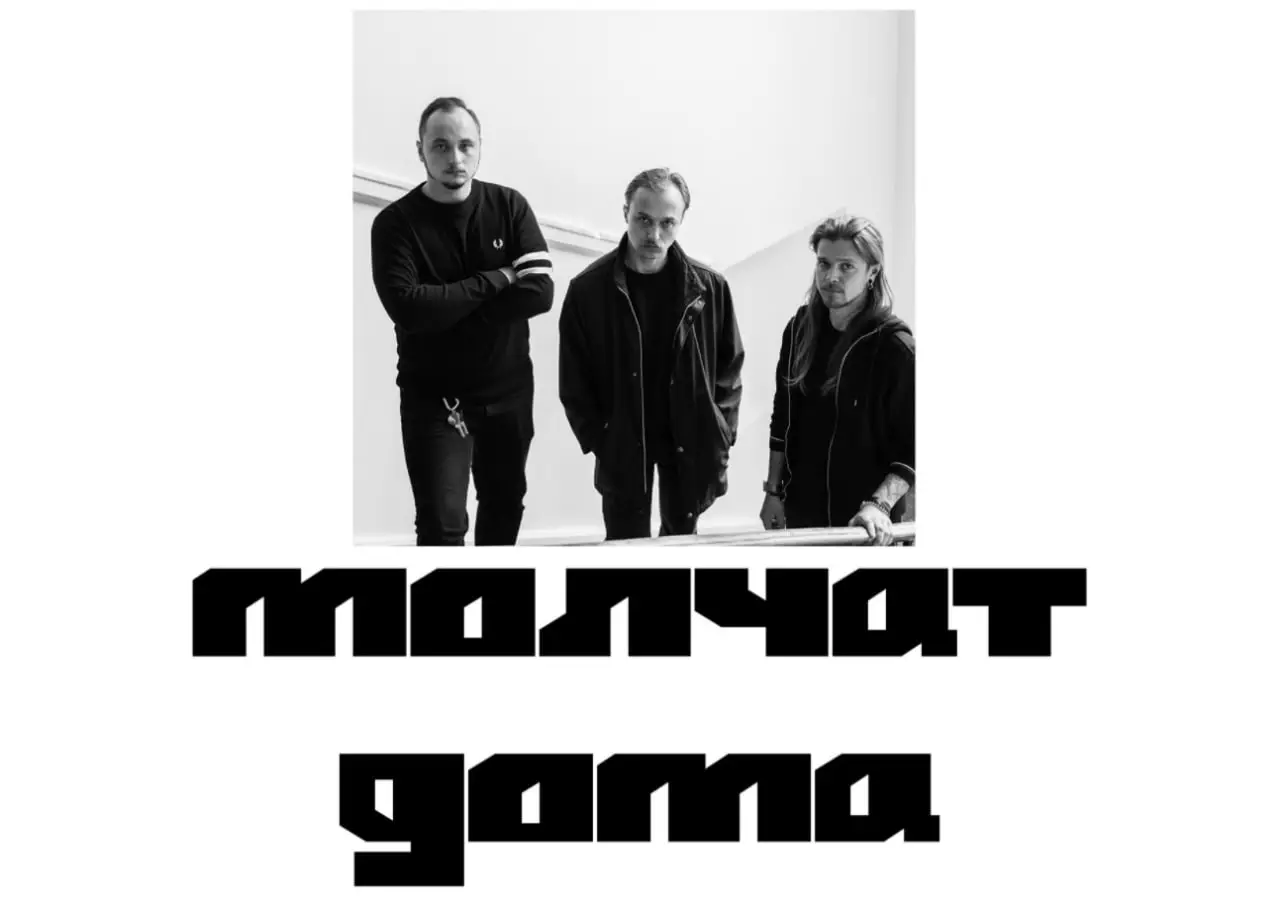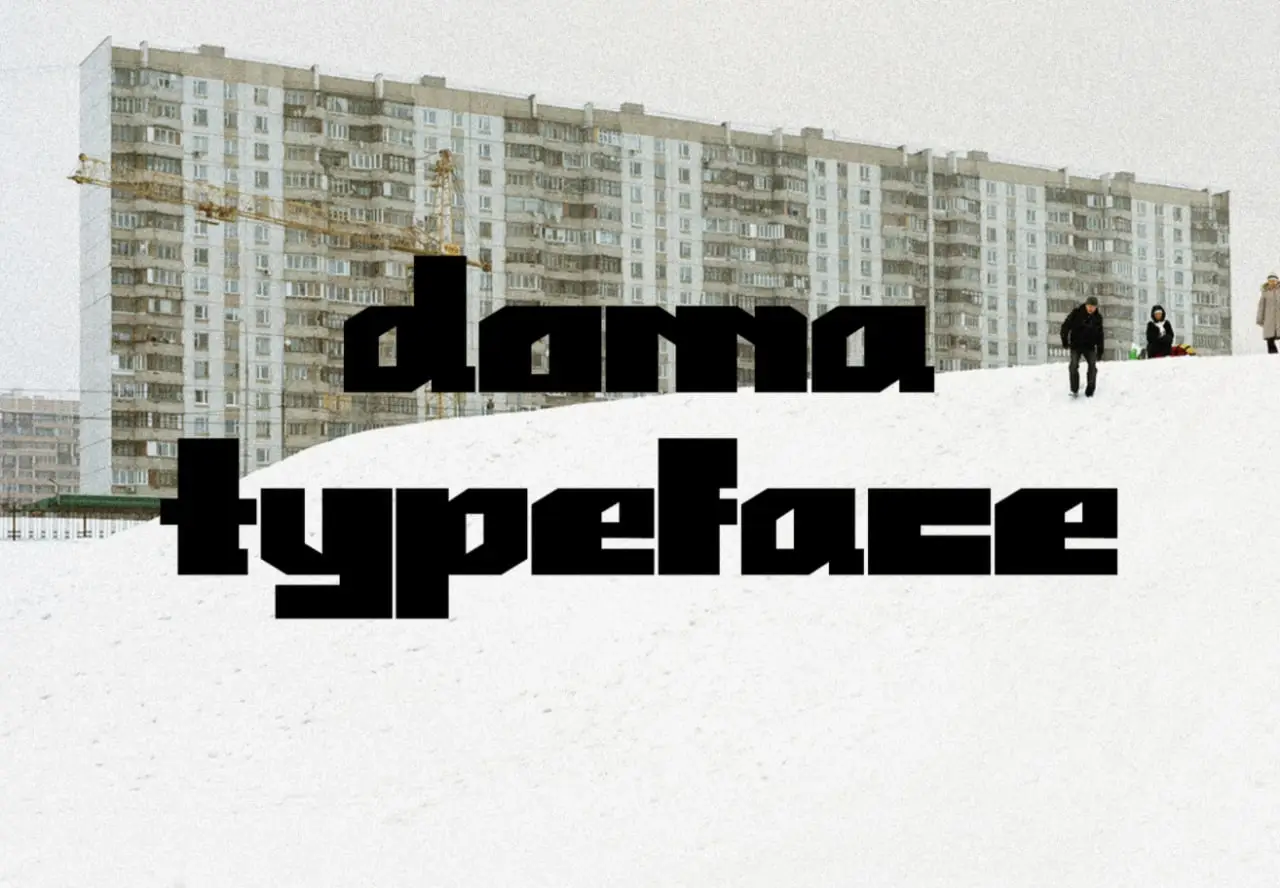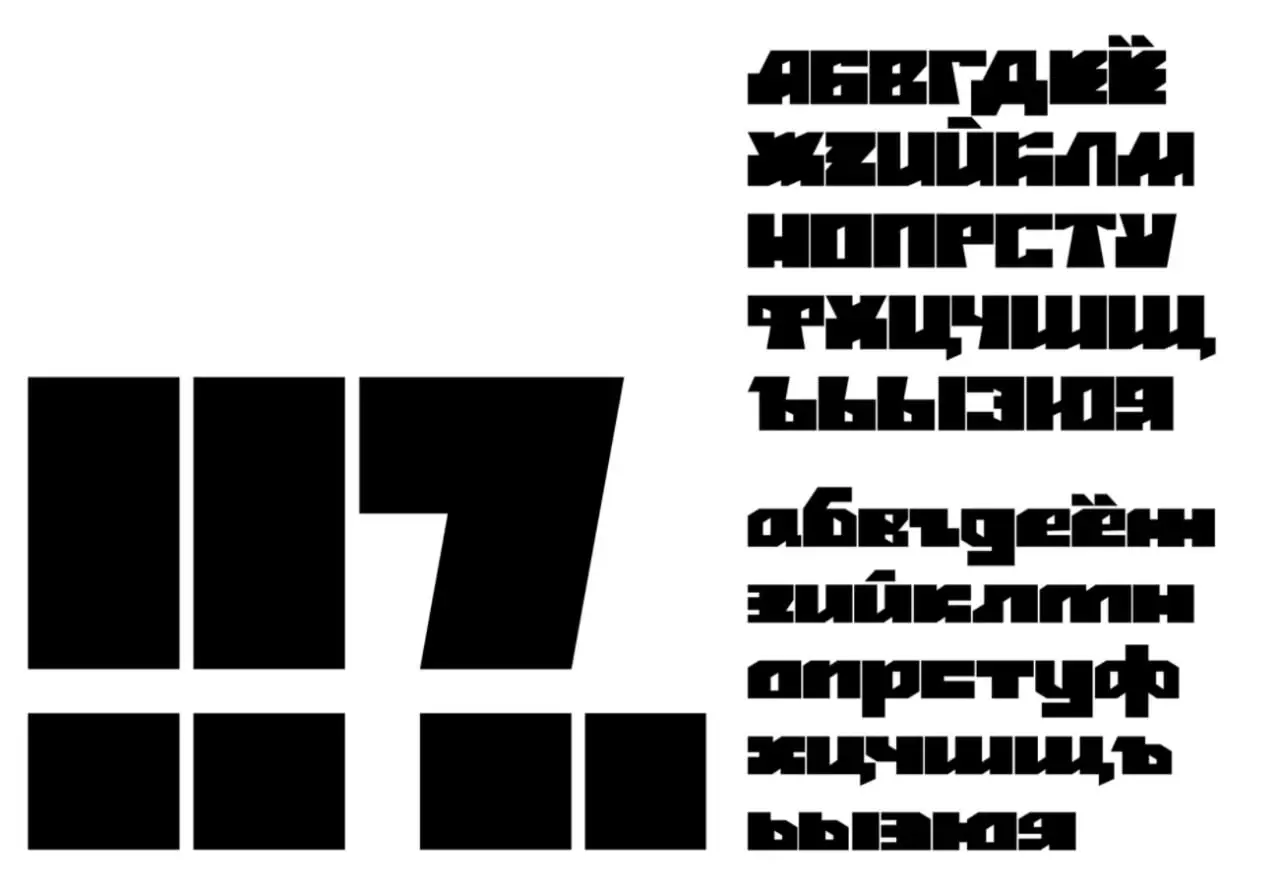
Doma Typeface
The Doma Typeface is a modern and versatile font that brings a touch of elegance to any design project. With its clean lines and contemporary style, this typeface is perfect for a variety of applications, from branding and logos to web design and print materials.
• Multiple weights for flexibility in design
• Stylish uppercase and lowercase letters
• Numerous special characters and ligatures
• Easy to read, making it suitable for both headings and body text
• Ideal for creating eye-catching logos and branding materials
• Great for web design, ensuring readability on various devices
• Perfect for print projects such as business cards, brochures, and posters